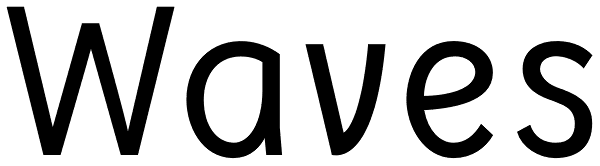
Waves
Waves is a sans serif typeface with pure but expressive look, which is notable even in smaller sizes. The softly decorative characters are also nicely visible in bigger sizes what makes Waves unique. A user can choose from two sets in all four...